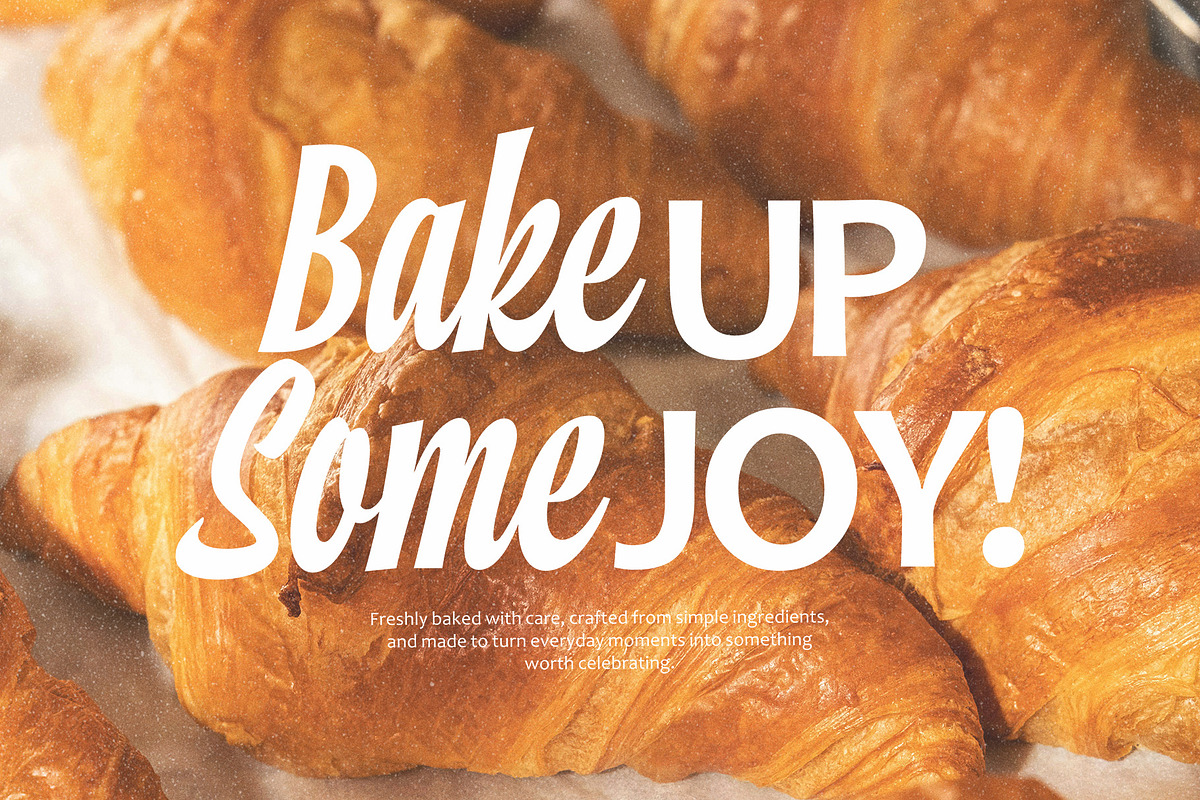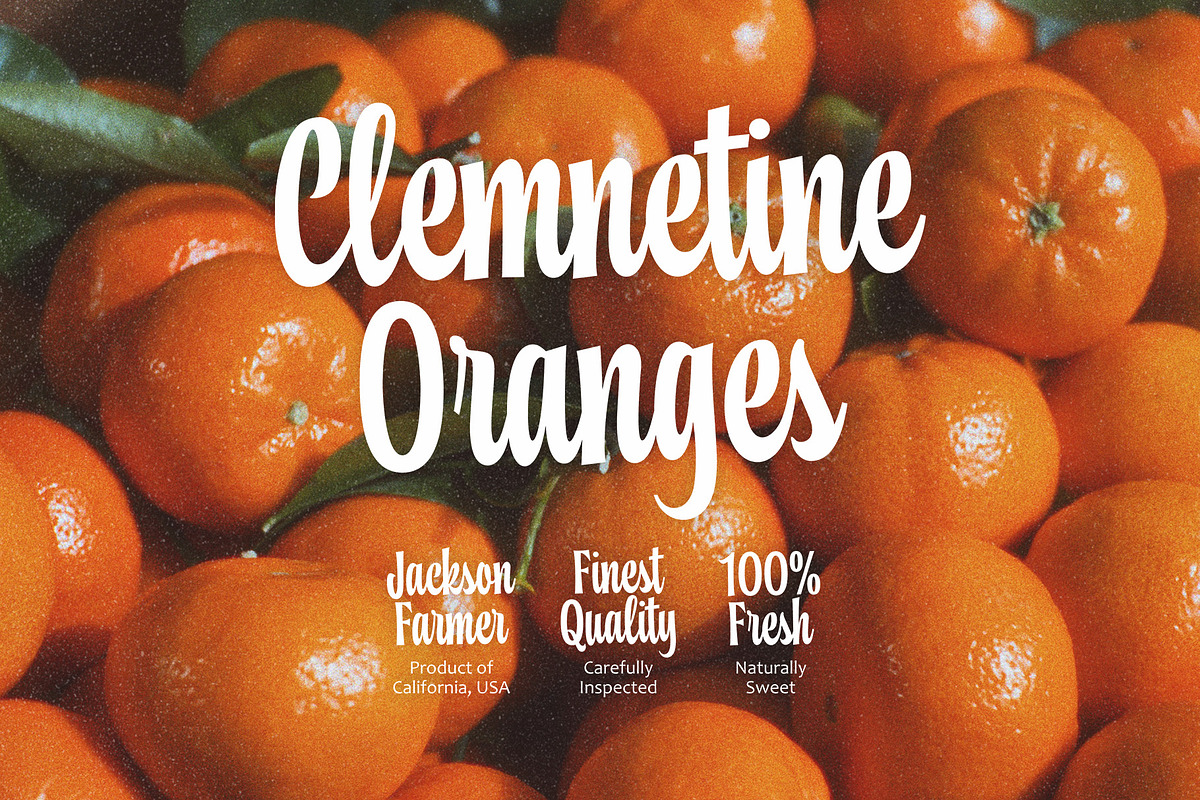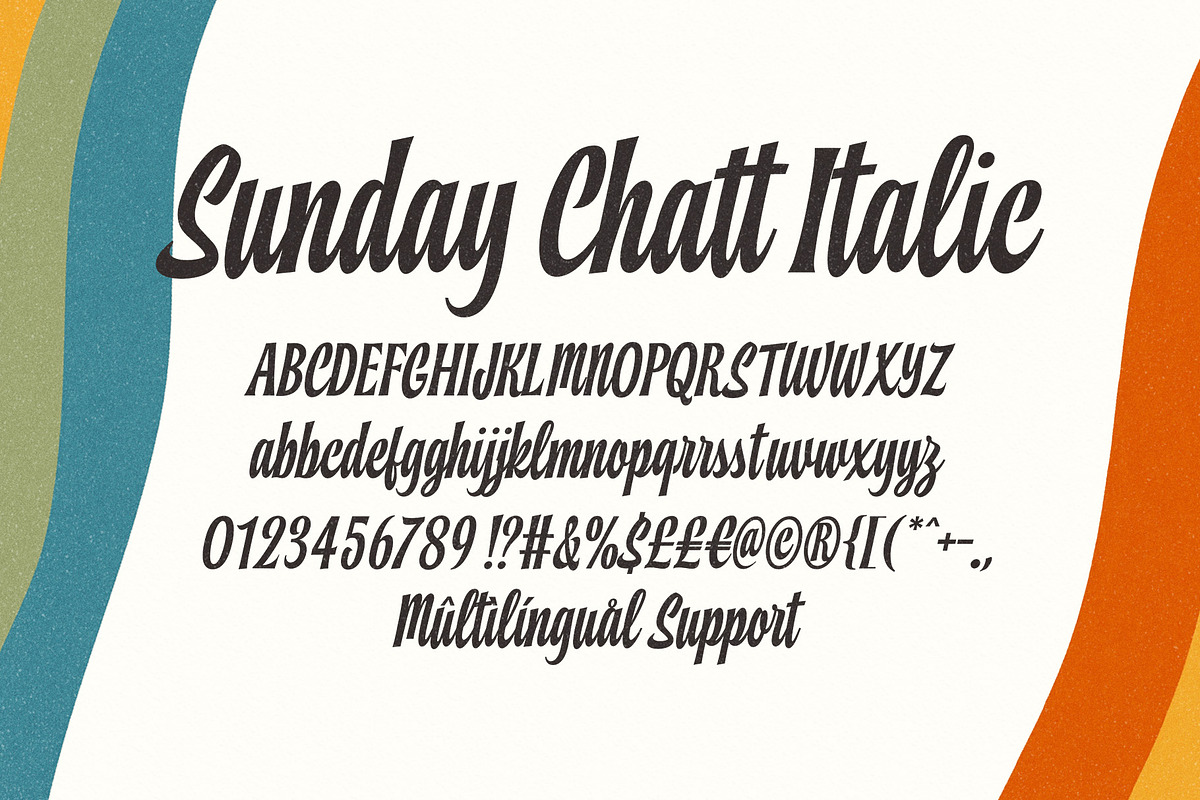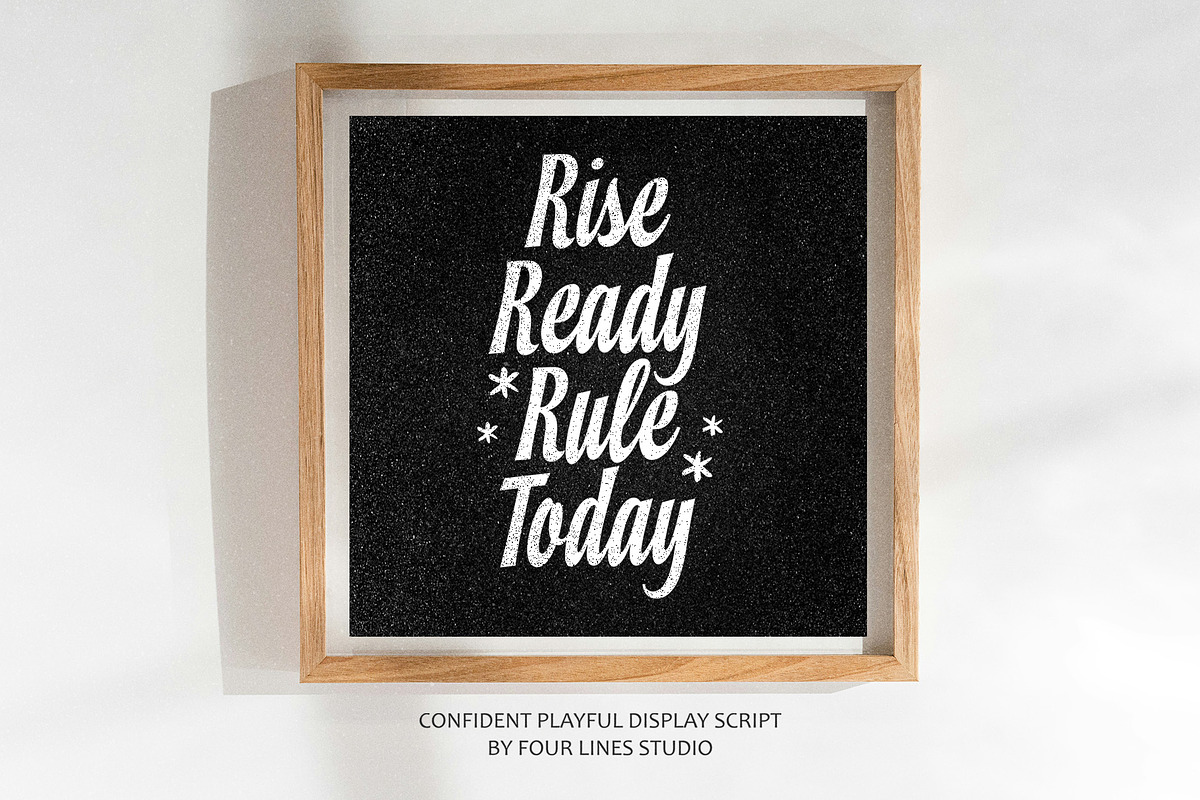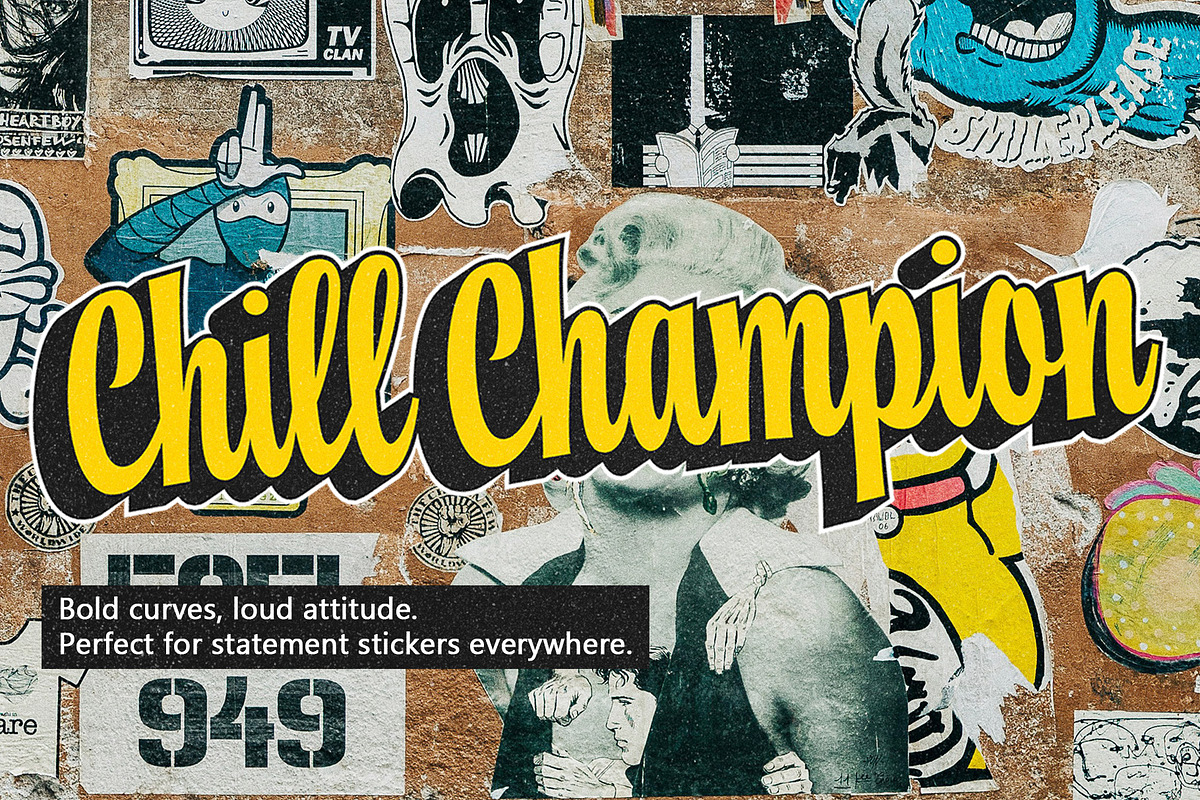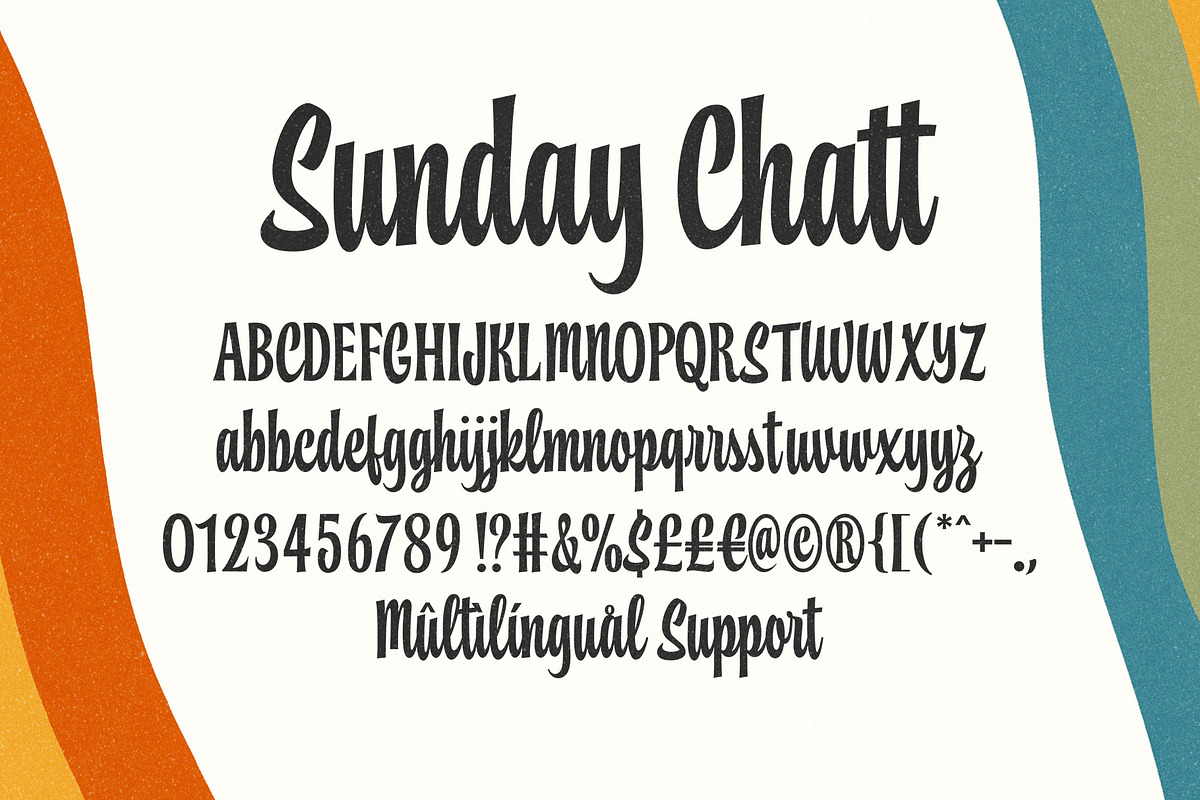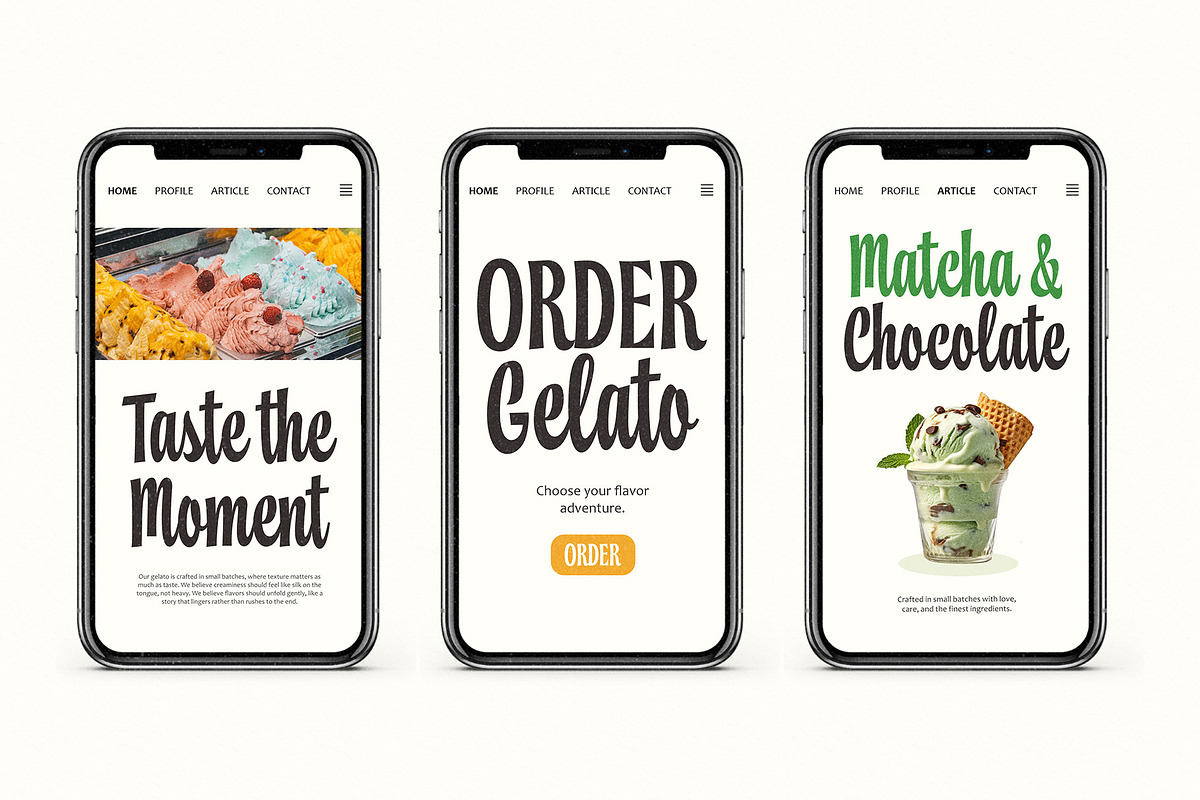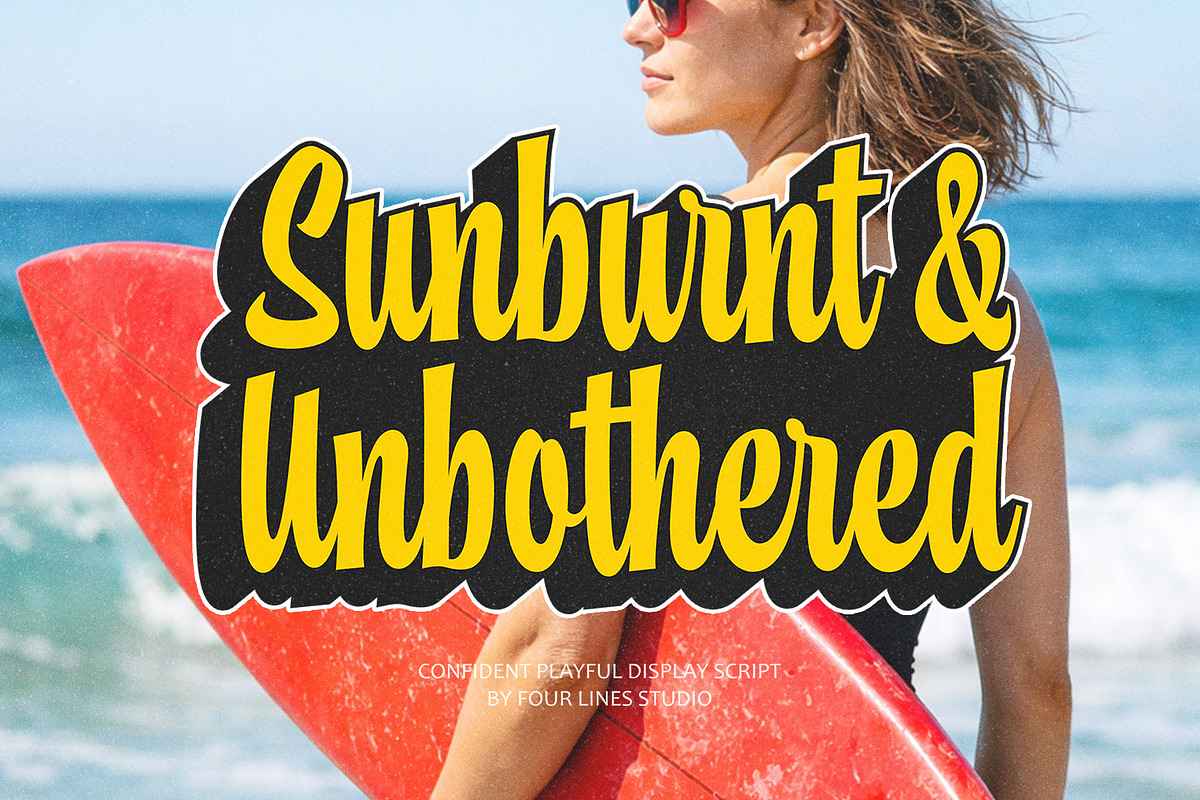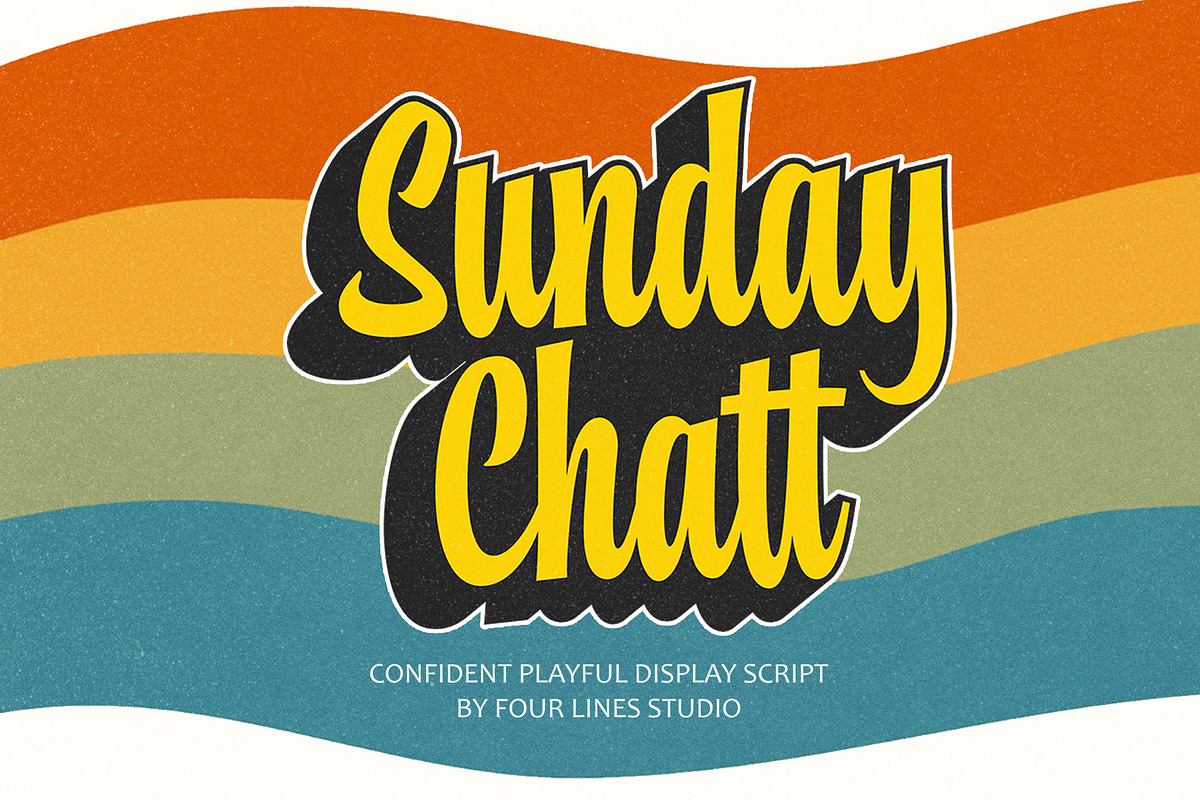
Sunday Chatt Playful Display Script
Sunday Chatt is a display script designed for modern visual needs. It works well for branding headlines, packaging design, merchandise, social media content, and editorial layouts that require an expressive touch. The letterforms perform best at larger sizes while remaining comfortably readable, making it effective as a main visual element in a composition.
Sunday Chatt comes in two styles, Regular and Italic, offering flexibility for different design directions. Its character blends a playful feel with a clean structure, staying expressive without feeling excessive and easy to use across various design contexts.